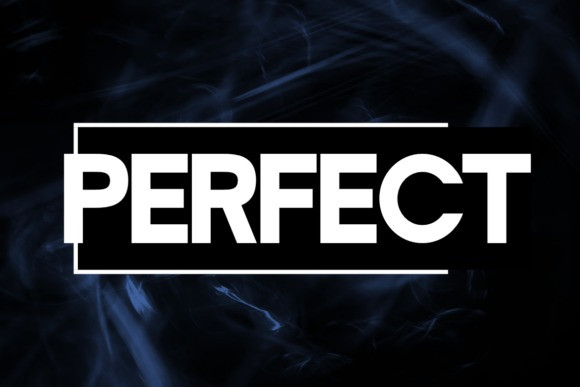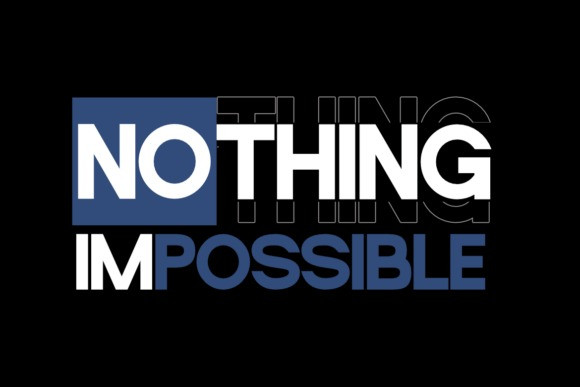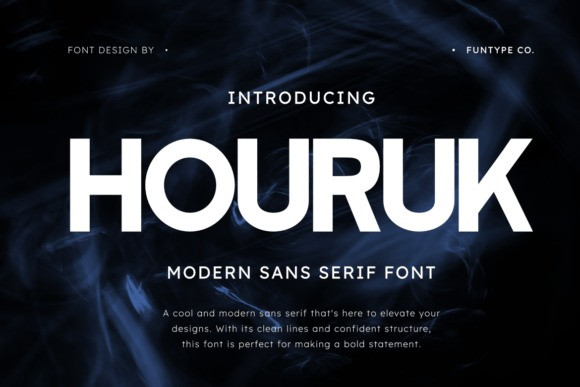
Houruk Font
Houruk Font is a modern sans-serif font with clean lines and a bold presence. Designed to bring a contemporary edge to your projects, this typeface combines simplicity with strength, making it ideal for impactful headlines, posters, branding, advertising, and digital designs. Its confident and versatile structure ensures your work stands out in professional and creative contexts.